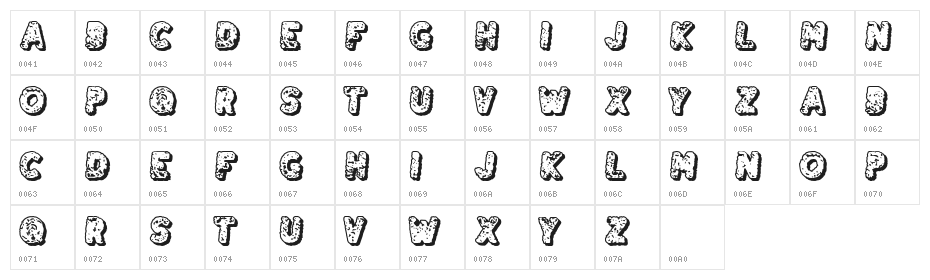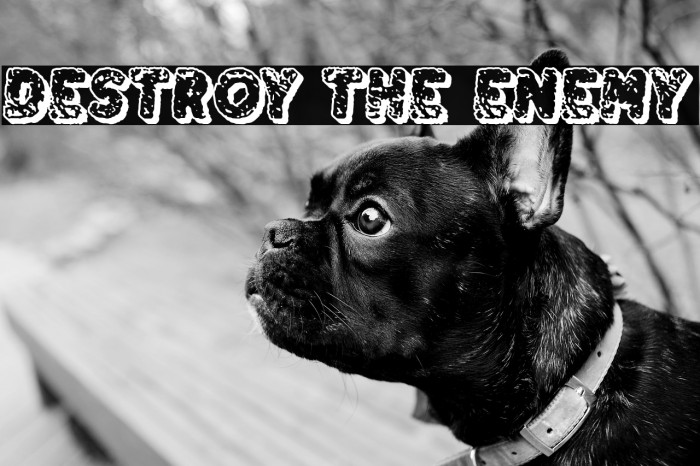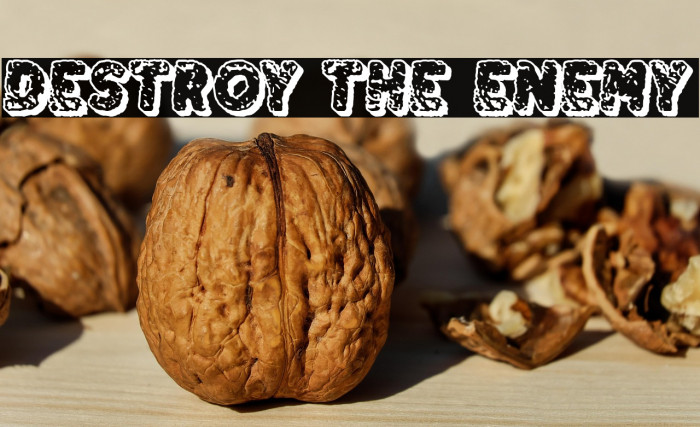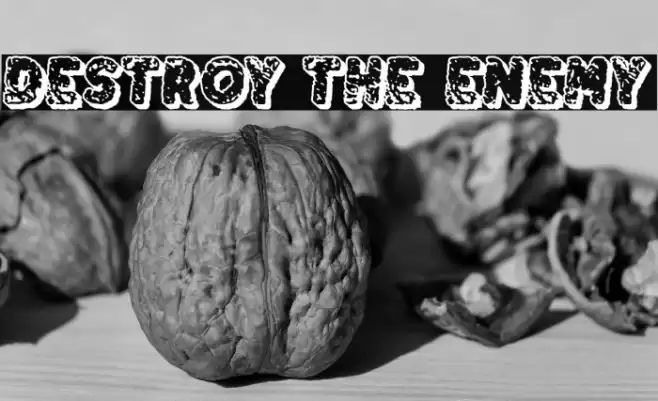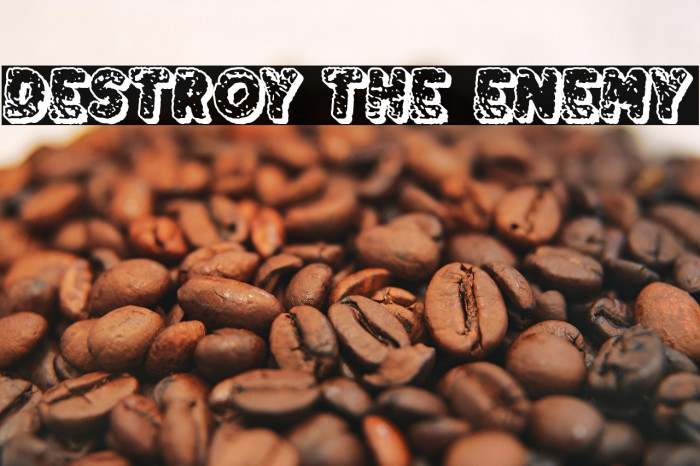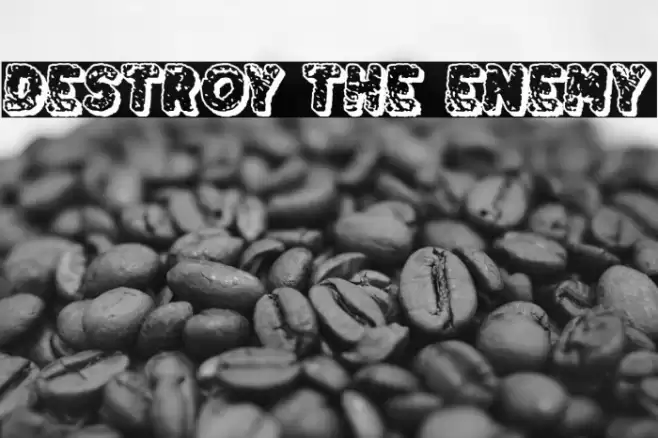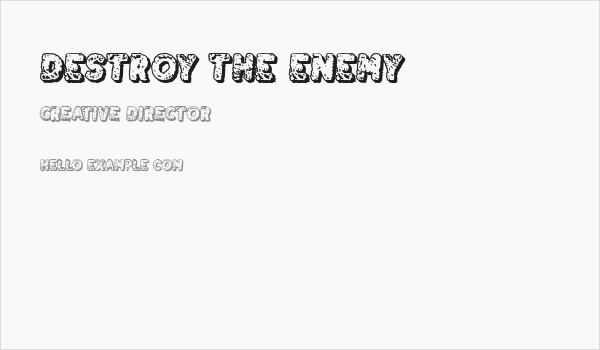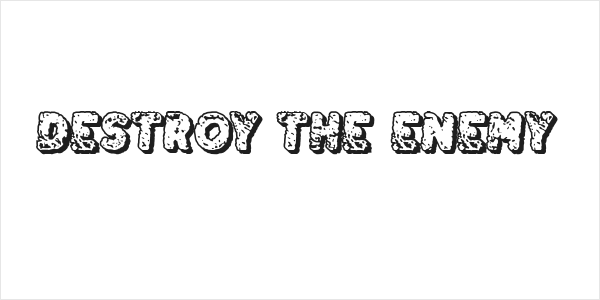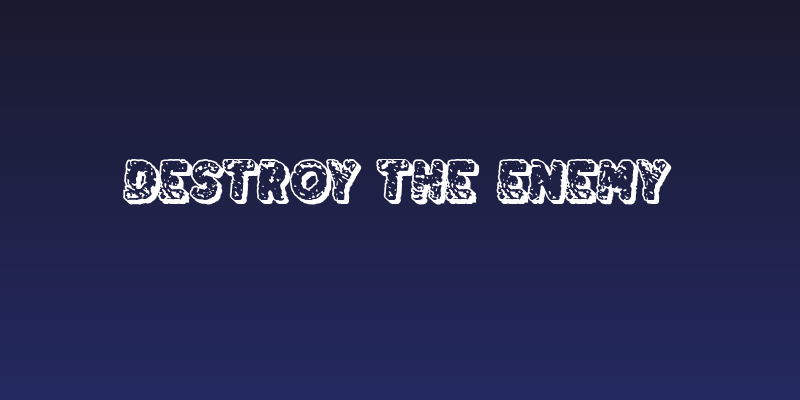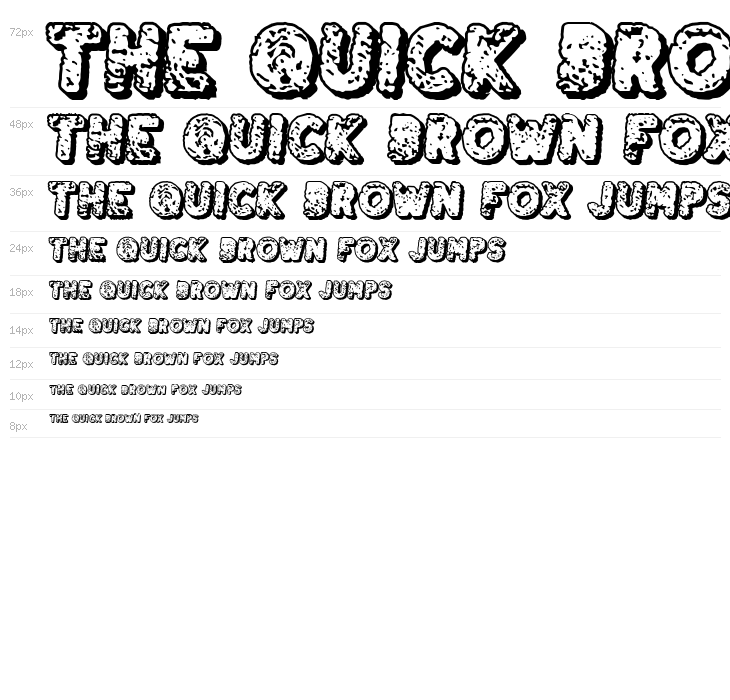
Destroy the Enemy Font
Destroy the Enemy Description
This font features a bold and rugged design, characterized by its distressed and textured appearance. The letters are thick and substantial, with a rough, eroded texture that gives them a gritty, worn look. This style evokes a sense of strength and edginess, making it ideal for projects that require a bold statement. The uppercase letters are uniform in size, and the overall design is consistent across the alphabet. The font's unique texture adds depth and interest, making it stand out in any design context.